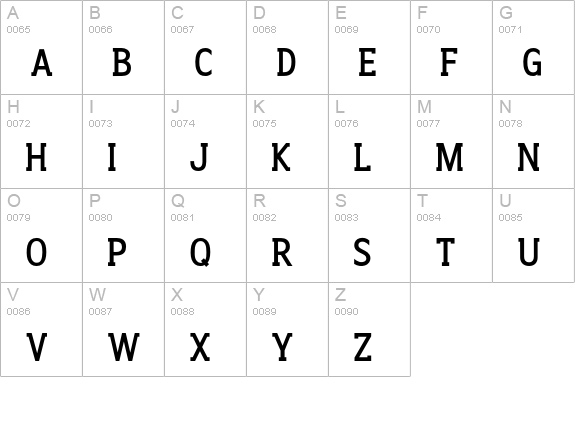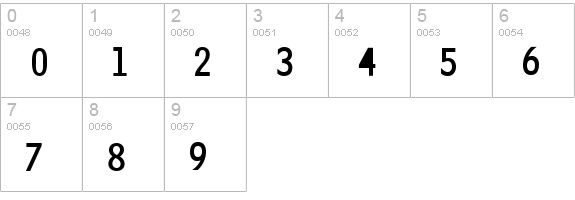
Clique-SerifBold Font Details
Clique-SerifBold is a bold and commanding font that exudes confidence and sophistication. Its strong serifs and clean lines make it perfect for headlines, logos, and branding materials that require a bold statement. The sturdy and impactful design of Clique-SerifBold ensures that your message will be noticed and remembered. What sets Clique-SerifBold apart is that it is not only a premium font in terms of quality but also in terms of accessibility. This versatile font is available for free download at FontsMarket.com, making it a valuable asset for designers, marketers, and content creators looking to elevate their projects without breaking the bank. With Clique-SerifBold, you can add a touch of elegance and professionalism to your designs without any cost barriers. Download it today and see how this bold font can transform your creative projects with its timeless appeal.